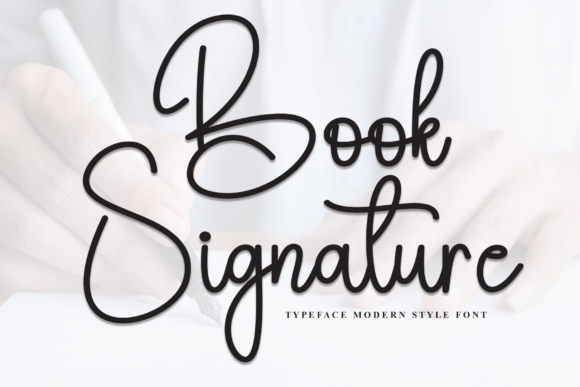
Introducing Book Signature Font: The Sweet Delight for Your Designs
Have you ever been in the middle of a design project, and suddenly, you just can’t seem to find the right font? I recall a particularly frustrating moment when I was working on a wedding invitation project. My client wanted a font that exuded warmth, friendliness, and a touch of whimsy, but still maintained an air of elegance. After hours of scouring through font libraries, I stumbled upon Book Signature Font, and it was love at first sight! In this article, I’ll share with you why I’m obsessed with this delightful font and how you can make the most of it in your designs.
The Charm of Book Signature Font
Book Signature Font is a warm, hand-scribbled display typeface that effortlessly blends whimsy with elegance. Its unique charm makes it perfect for crafting wedding invitations, greeting cards, or any design that craves a playful yet sophisticated edge. With Book Signature Font, you can invoke joy and lightheartedness in your visual narrative, making it an excellent addition to your design toolkit.
What I Love About Book Signature Font ✨
• ✅ Unique Character: Book Signature Font has a distinct, hand-scribbled feel that sets it apart from other fonts.
• ✅ Versatility: It works beautifully for both digital and print designs, from wedding invitations to social media graphics.
• ✅ Elegant yet Playful: The font strikes the perfect balance between sophistication and playfulness, making it suitable for a wide range of design projects.
• ✅ Easy to Read: Despite its whimsical nature, Book Signature Font remains highly legible, even at smaller font sizes.
• ⚠️ Limited Use Cases: While Book Signature Font is incredibly versatile, it may not be the best choice for very formal or corporate designs.
• ⚠️ Glyph Limitations: As with any font, there may be limitations to the number of glyphs available, which could impact its use in multilingual designs.
The Backstory of Book Signature Font
Book Signature Font was designed with the intention of creating a unique, hand-scribbled typeface that would bring warmth and personality to designs. The designer aimed to craft a font that would be both elegant and playful, making it perfect for a wide range of creative projects.
What makes Book Signature Font unique? Book Signature Font’s unique character comes from its hand-scribbled feel, which blends whimsy with elegance.
Is Book Signature Font suitable for digital designs? Absolutely! Book Signature Font works beautifully for both digital and print designs.
Can I use Book Signature Font in languages other than English? While Book Signature Font may have limitations in terms of glyphs, it can still be used for multilingual designs. However, it’s essential to check the font’s capabilities and limitations.